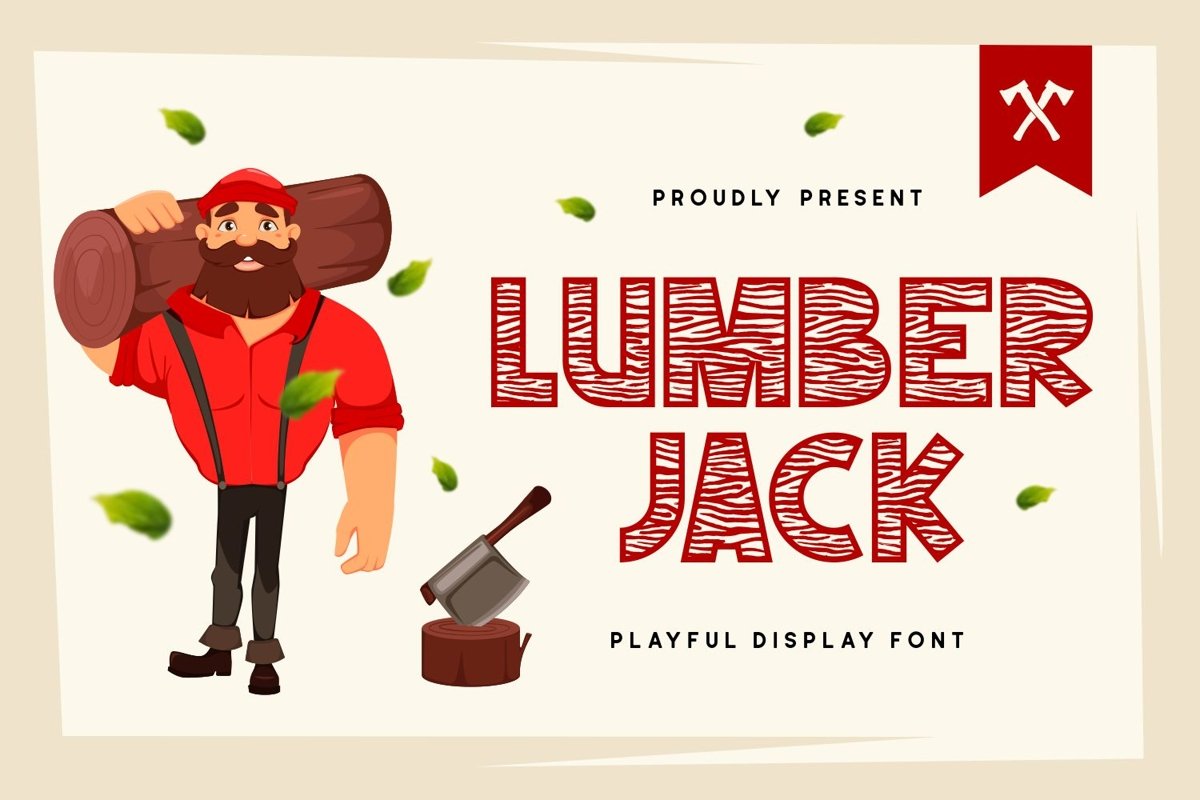
Lumberjack is a fun sans serif display come with playful themes. We create most decorative in all characters. It matches applies in some designs such as the logotype, brand, packaging, quotes, kids poster, shirt, children’s book and more custom design. The features uppercase, lowercase, numeral, punctuation & symbol, multilingual support.
Lumberjack